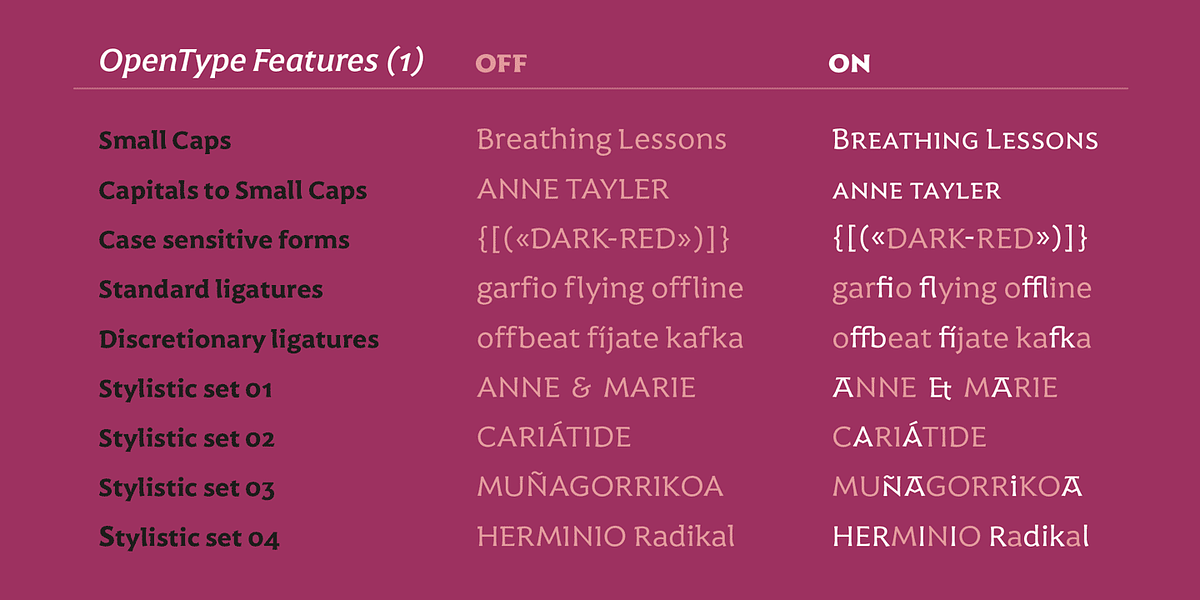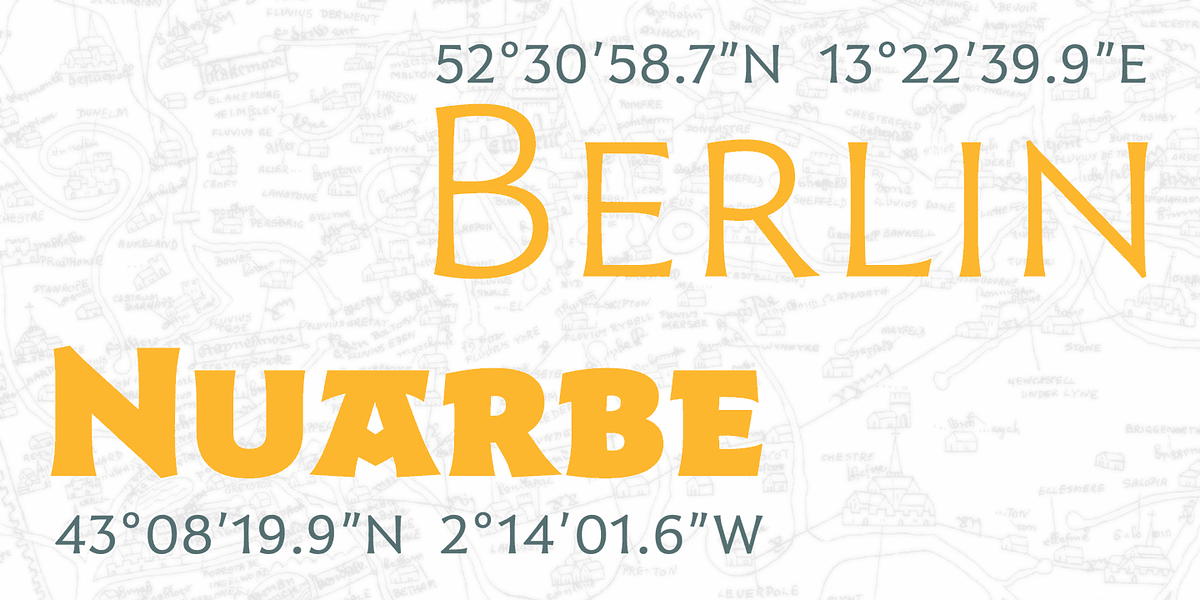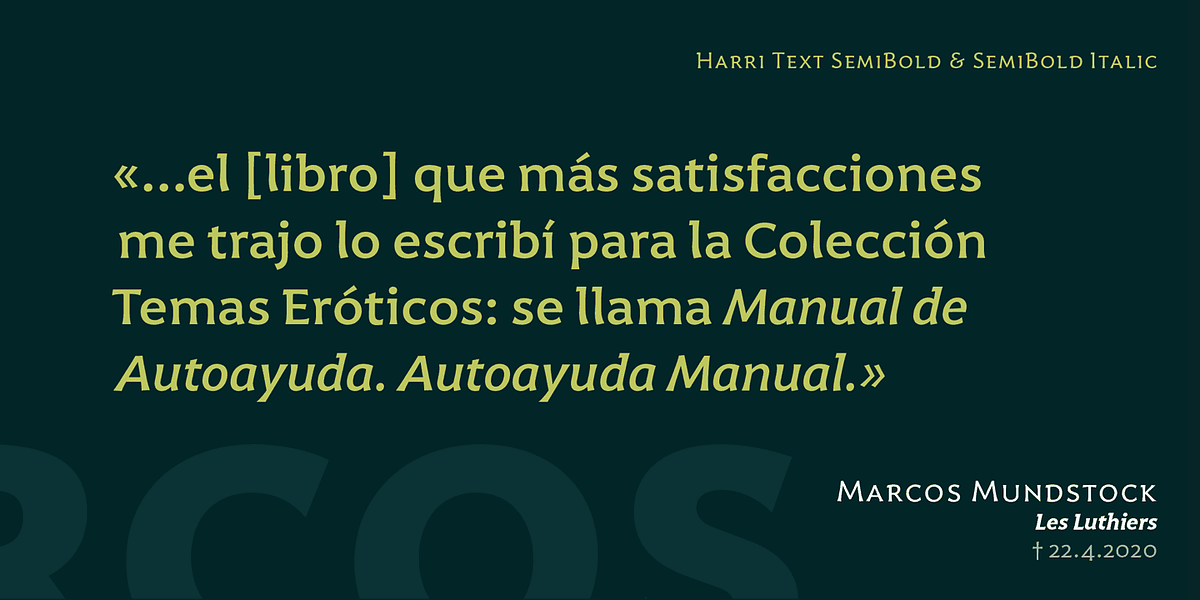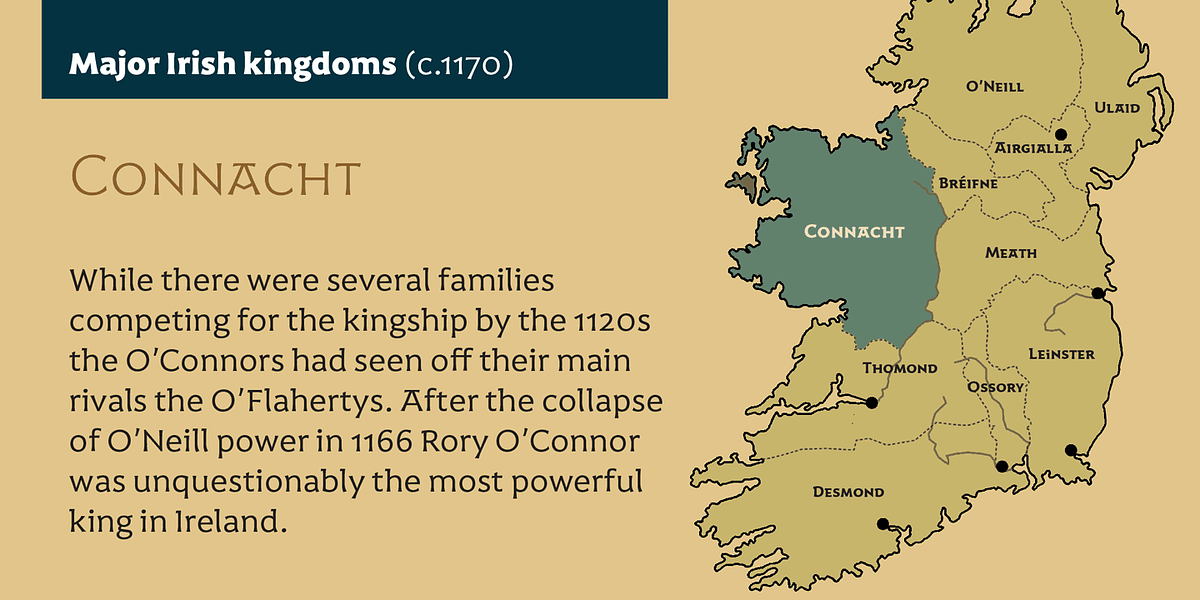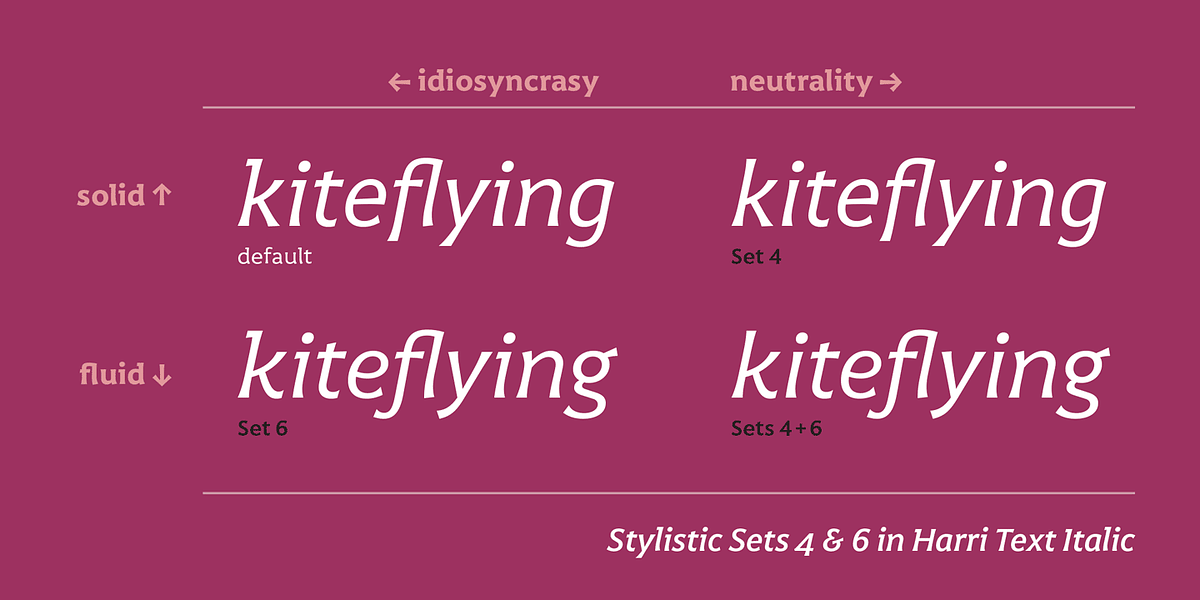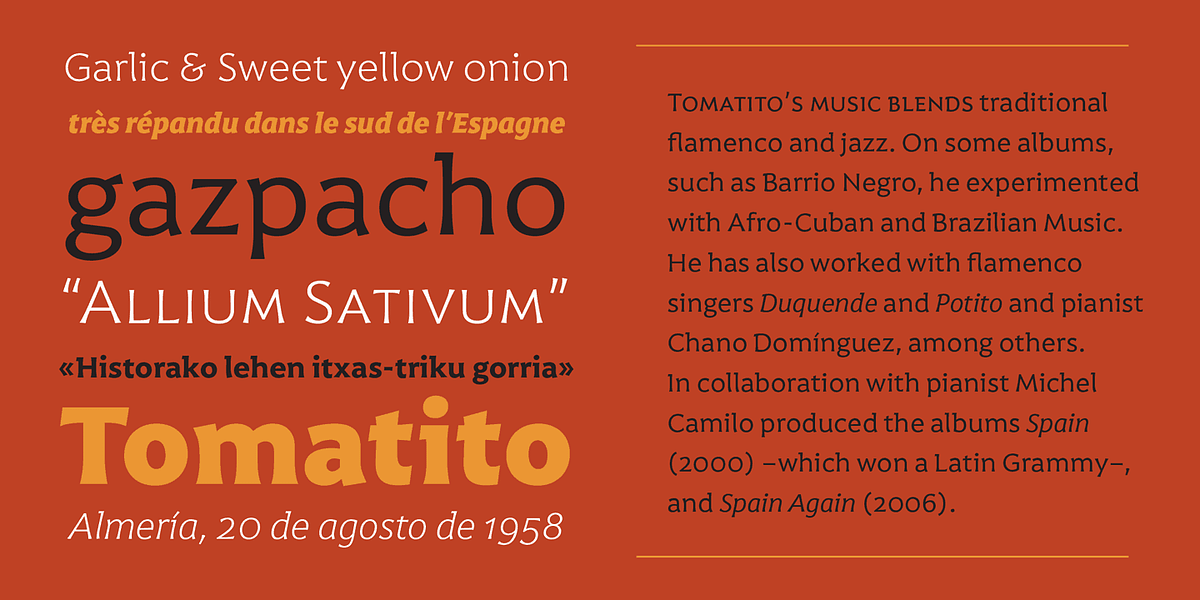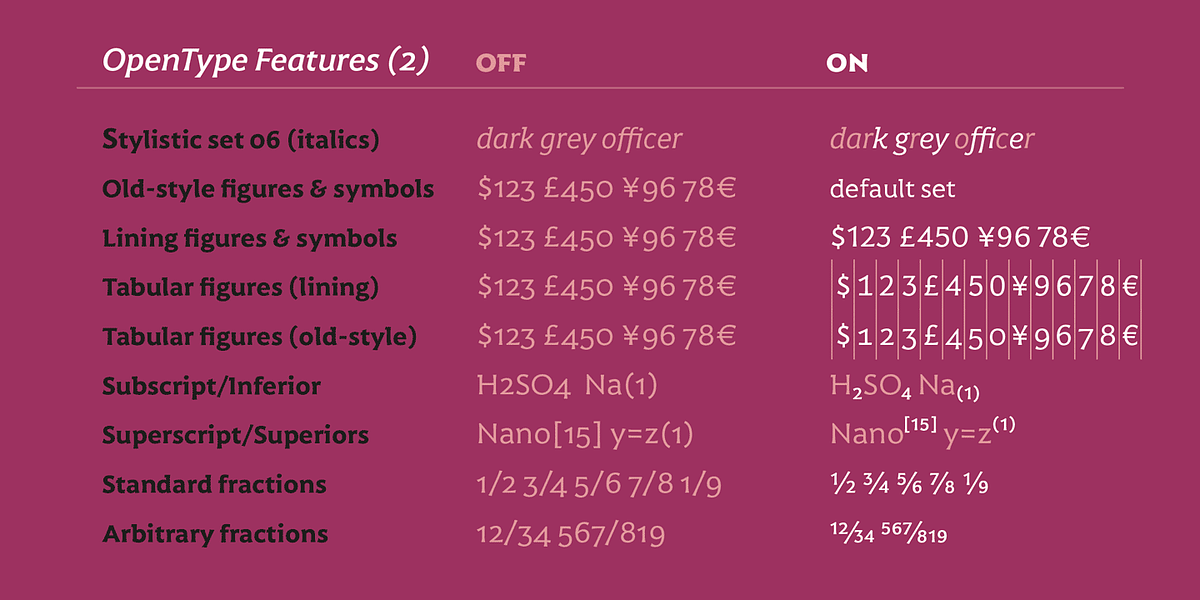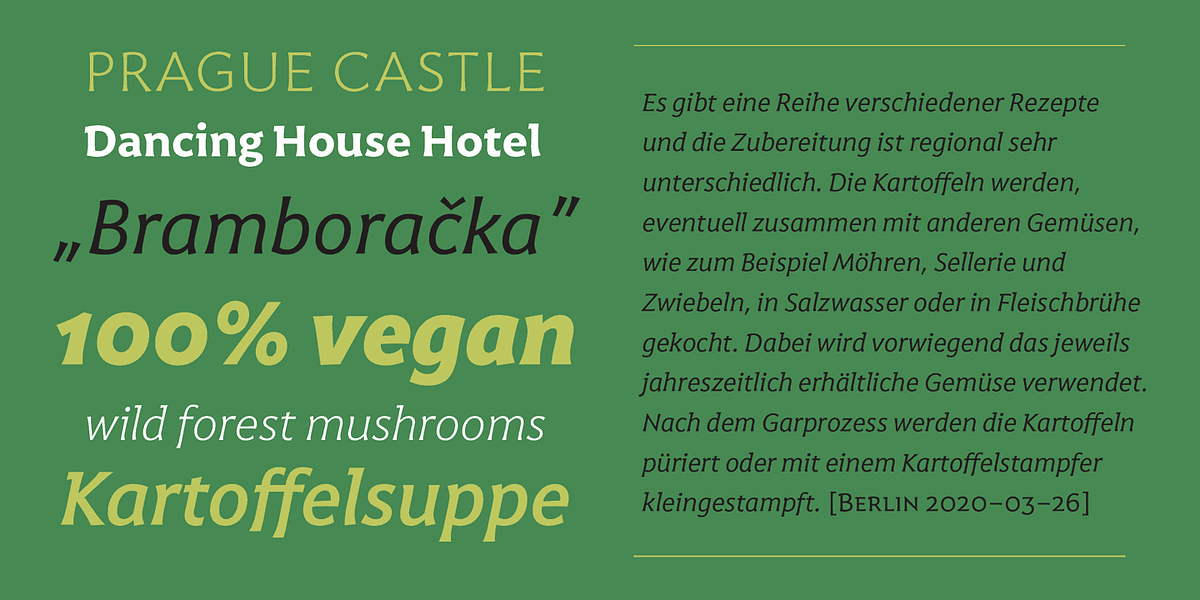
Harri Text
Harri Text is a humanist sans serif typeface designed for both display and text applications. It draws inspiration from vernacular Basque lettering, resulting in unique characteristics that can be toned down or emphasized through stylistic sets. The font offers a range of weights and includes italics with optional calligraphic flourishes. Its extensive character set supports over 220 languages.